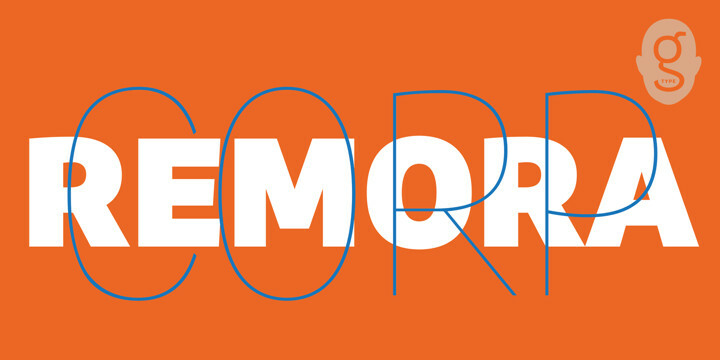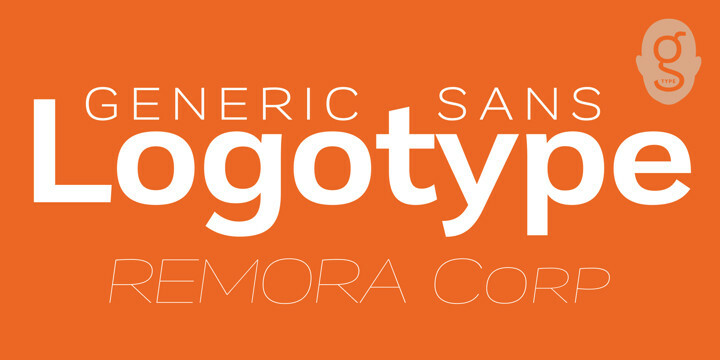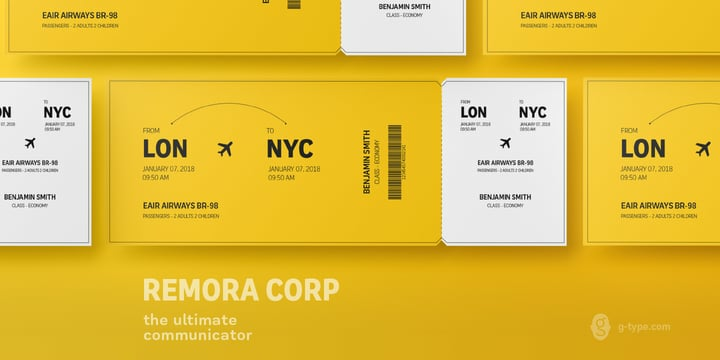
Remora Corp Complete Font Family (70 Fonts)
Remora is an extensive new humanist sans serif which comes in 2 style variations, the effervescent
Remora Sans and its corporate business partner Remora Corp. Both styles include 5 individual width sets ranging from the condensed W1 to the extra-wide W5. Furthermore, with an impressive 7 weights (Thin to Ultra) and true matching italics in each pack Remora is an ultra versatile super family comprising 140 individual fonts, perfect for any typographic assignment or design brief. Remora was designed by G-Type founder Nick Cooke. Both the Sans and Corp families share the same proportions, with the exception of certain key characters that change the overall appearance. Remora Sans is an exuberant and characterful typeface while Remora Corp, as its name suggests, is a businesslike typeface more suited to corporate typography. Quite early on in the design process Nick decided to give Remora Corp equal billing instead of incorporating these glyphs as alternates or a stylistic set that may get overlooked. “I created two separate families after learning a valuable lesson with one of my earlier typefaces, Houschka”, says Nick. “Houschka contained distinctive rounded A’s W’s and w’s, with ‘straight’ styles as character alternates. Even though style sets and alternates are easy to activate they are rarely used, so after many requests for customised versions of the fonts with the straight characters as defaults it was decided to create the separate ‘Alt’ family. So I cut straight to the chase with the two Remora variants and created two complementary families.” Both sets contain many shared letterforms, but it is the alternate characters that significantly alter the appearance of each font. Remora has been carefully designed for optimum legibility at large and very small sizes. Although fairly monolinear in appearance, especially in the lighter weights, particular attention has been paid to optical correction like the overshoots of the curved characters. Open counters and painstaking attention to detail (e.g. weight contrast between horizontal and vertical strokes, junctions of shoulders and stems etc) all boost readability and make Remora a great choice across all media. Remora Sans and Corp are ‘humanist’ rather than ‘geometric’ in style, meaning they’re not strictly based on rectangles and circles, resulting in a warm and friendlier feel. The slightly ’super-elliptical’ rounded forms create generously attractive curves. Remora has very distinctive italics in that they are only inclined by 8 degrees, but are not just based on slanted uprights. The italic styles are very alluring when used for display at large sizes and the good news is they come bundled free with their respective uprights. Each family also contains many OpenType features including proportional and tabular numbers, small caps, discretionary ligatures, plus five stylistic sets for ultra versatile typography.